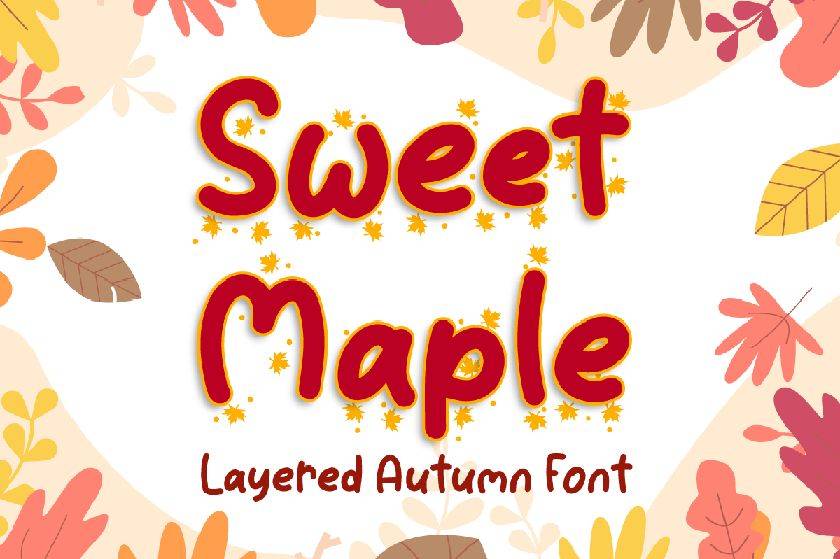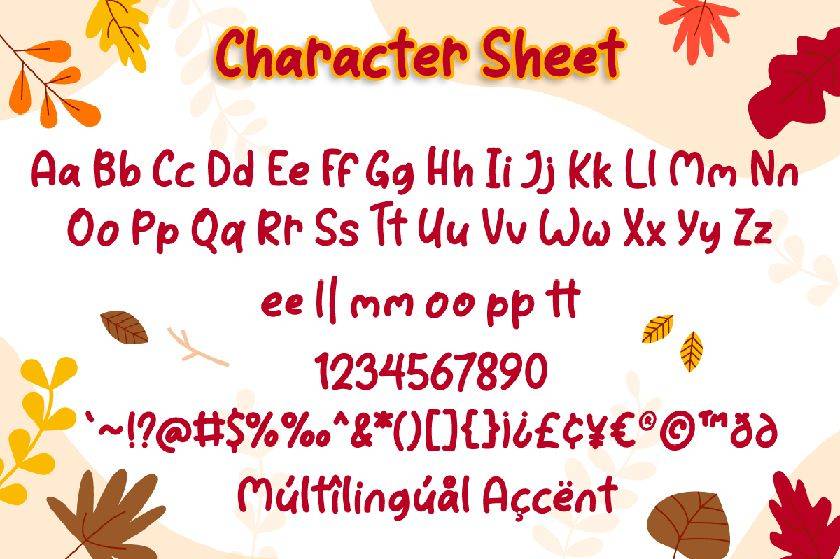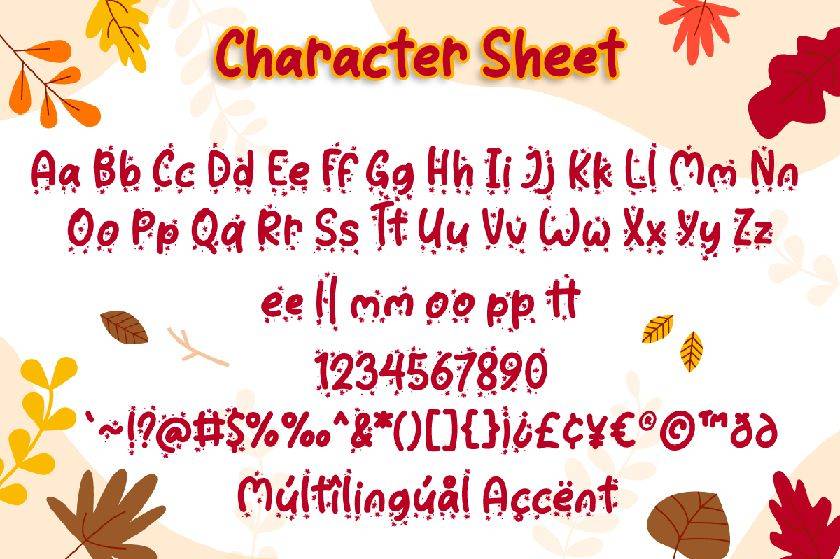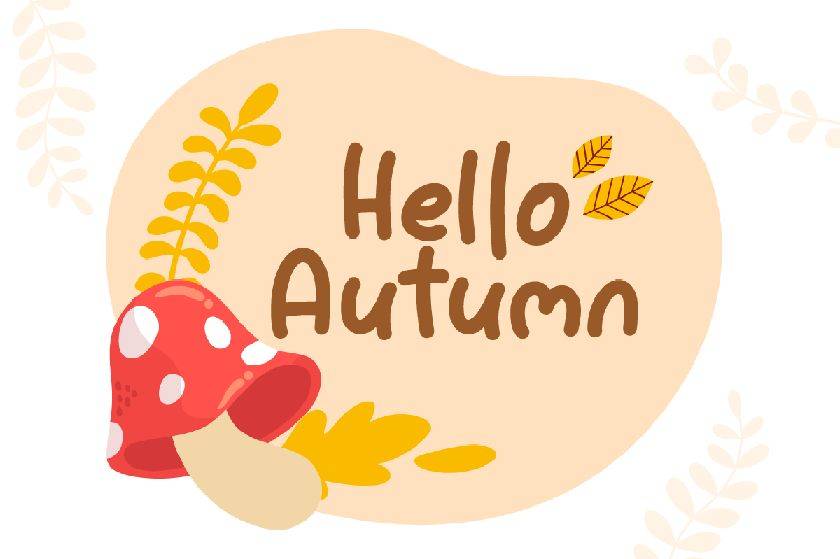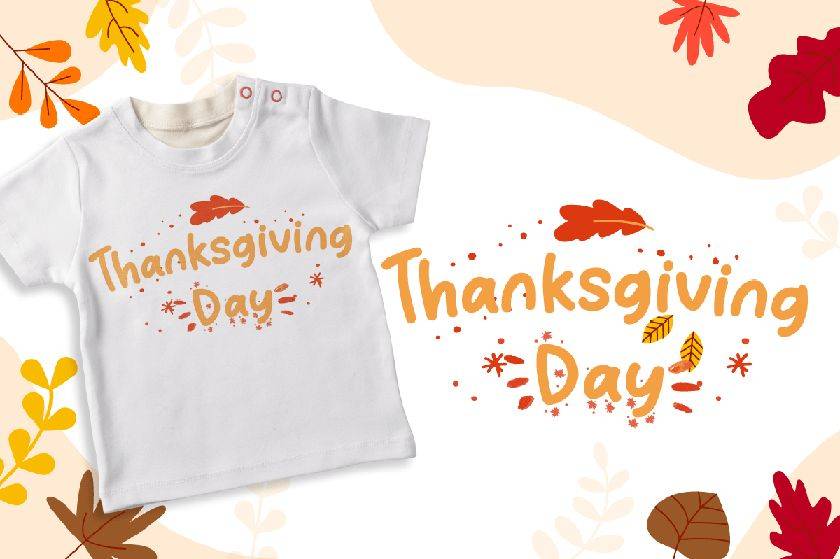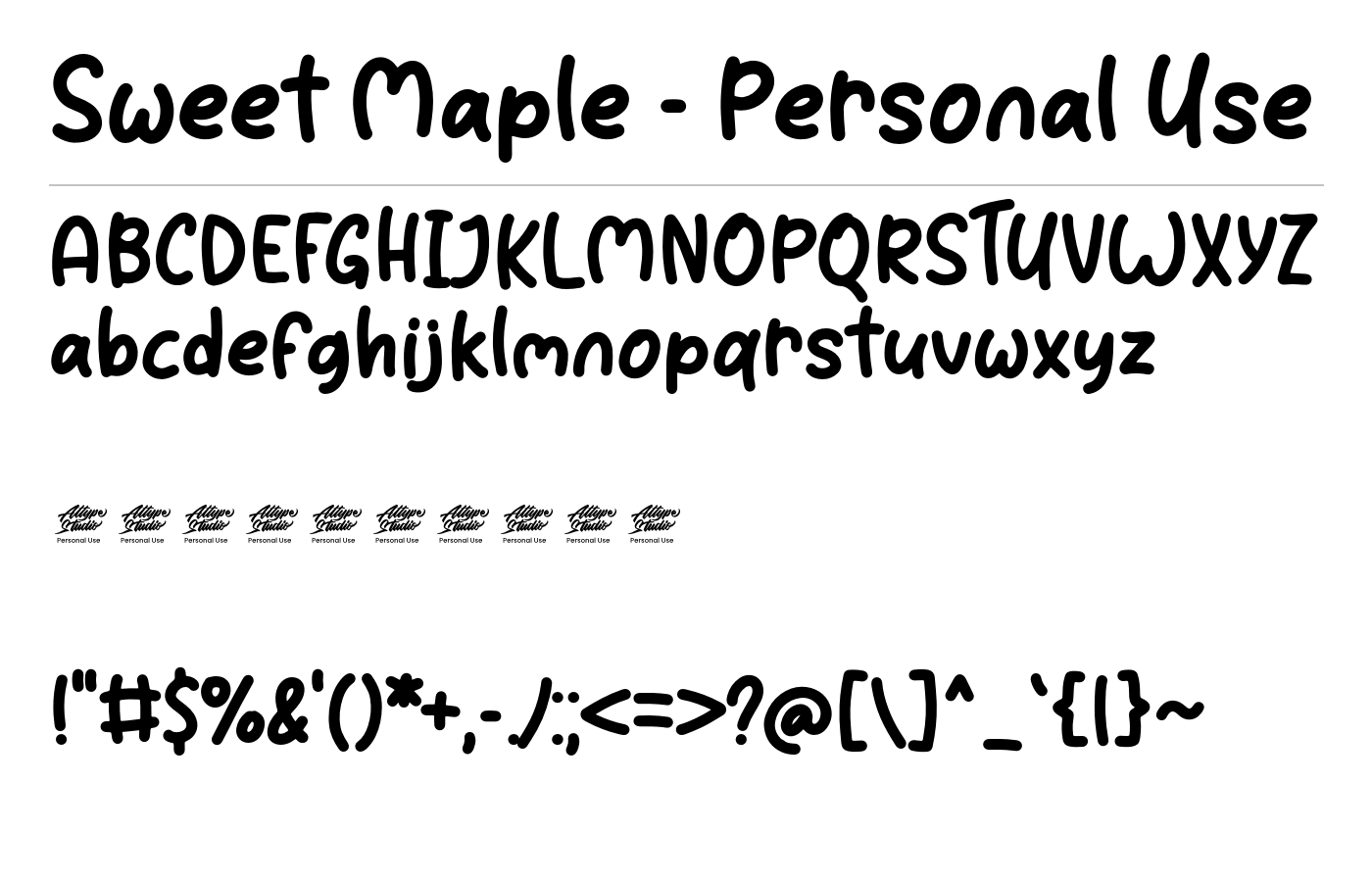
Sweet Maple is a playful and friendly sans serif font with a casual, hand-drawn look. Its rounded, medium-weight strokes and open letterforms make it inviting and easy to read, perfect for informal designs like children’s books, greeting cards, and fun branding. This font’s lively personality brings warmth and approachability to any creative project.
Sweet Maple Font
About Sweet Maple Font
| Font family | Sweet Maple Font |
| Release date | 2020-05-30 |
| Designer | Fadli Ramadhan Iskandar |